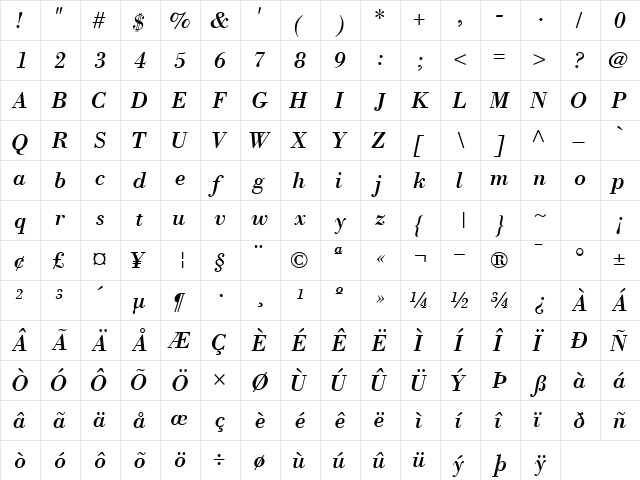
BodoniSSK Italic
Design Context for BodoniSSK Typeface
BodoniSSK offers clean, dependable letterforms without strong stylistic allegiance, making it a practical choice for designers who need flexibility. The slanted form adds forward momentum and visual energy.
Pro Tip: Use BodoniSSK for emphasis, pull quotes, and subheadings where its slanted energy can add rhythm to the layout.